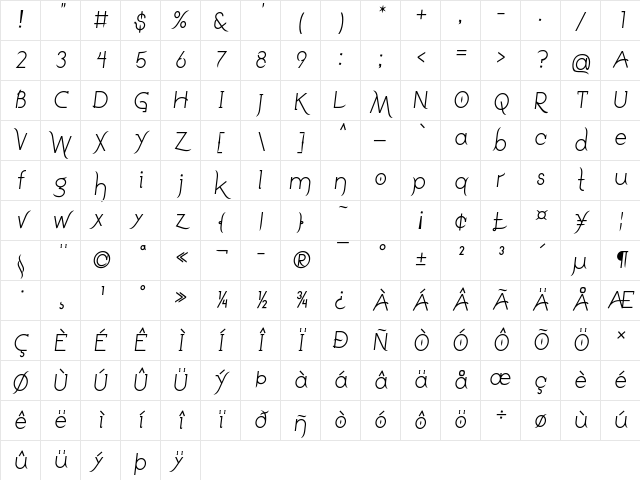
Drakoheart Leiend Italic
Designer: Yun Gonz￿z
Drakoheart Leiend Family
Design Context for Drakoheart Leiend
Drakoheart Leiend is a composed and adaptable typeface that performs quietly and consistently across a wide range of design contexts. The slanted form adds forward momentum and visual energy.
Pro Tip: Use Drakoheart Leiend for emphasis, pull quotes, and subheadings where its slanted energy can add rhythm to the layout.